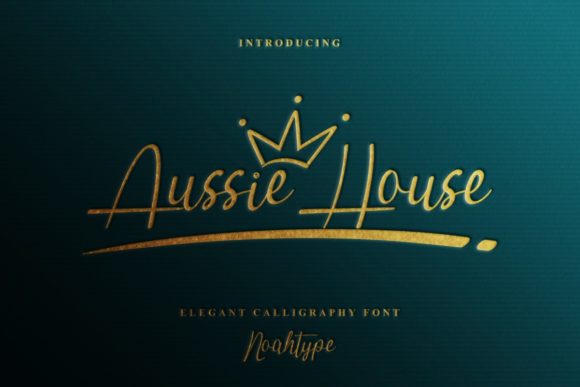
Meet Aussie House, the enchanting script font that will ignite your creativity and captivate your audience. Designed by the talented NoahType, Aussie House embodies grace and sophistication, making it the perfect choice for adding a touch of elegance to your design projects.
Aussie House's fluid strokes and delicate curves dance across the page, creating a captivating visual experience that will leave an unforgettable impression. Whether you're a seasoned designer or just starting your creative journey, Aussie House is the perfect tool to elevate your work and make it stand out from the crowd.
With its meticulously crafted characters and extensive swashes, Aussie House empowers you to express yourself with endless possibilities. Its PUA encoding ensures effortless access to all of the font's glyphs and swashes, giving you the freedom to explore your imagination and create truly unique designs.
Immerse yourself in the world of Aussie House and witness the transformative power of typography. From enchanting invitations to eye-catching logos, this font will add a touch of magic to every project you undertake. Let Aussie House be your guide as you embark on a journey of creativity and self-expression.
Unlock the beauty of Aussie House today and let your designs shine brighter than ever before!